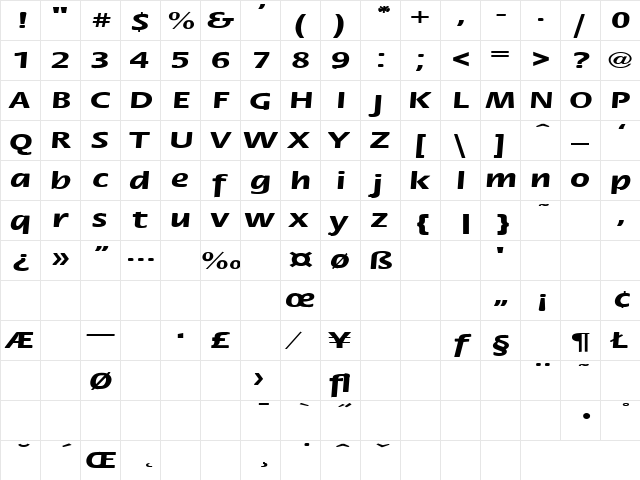
Holy Houses 7 Regular
Holy Houses 7 is a composed and adaptable typeface that performs quietly and consistently across a wide range of design contexts.